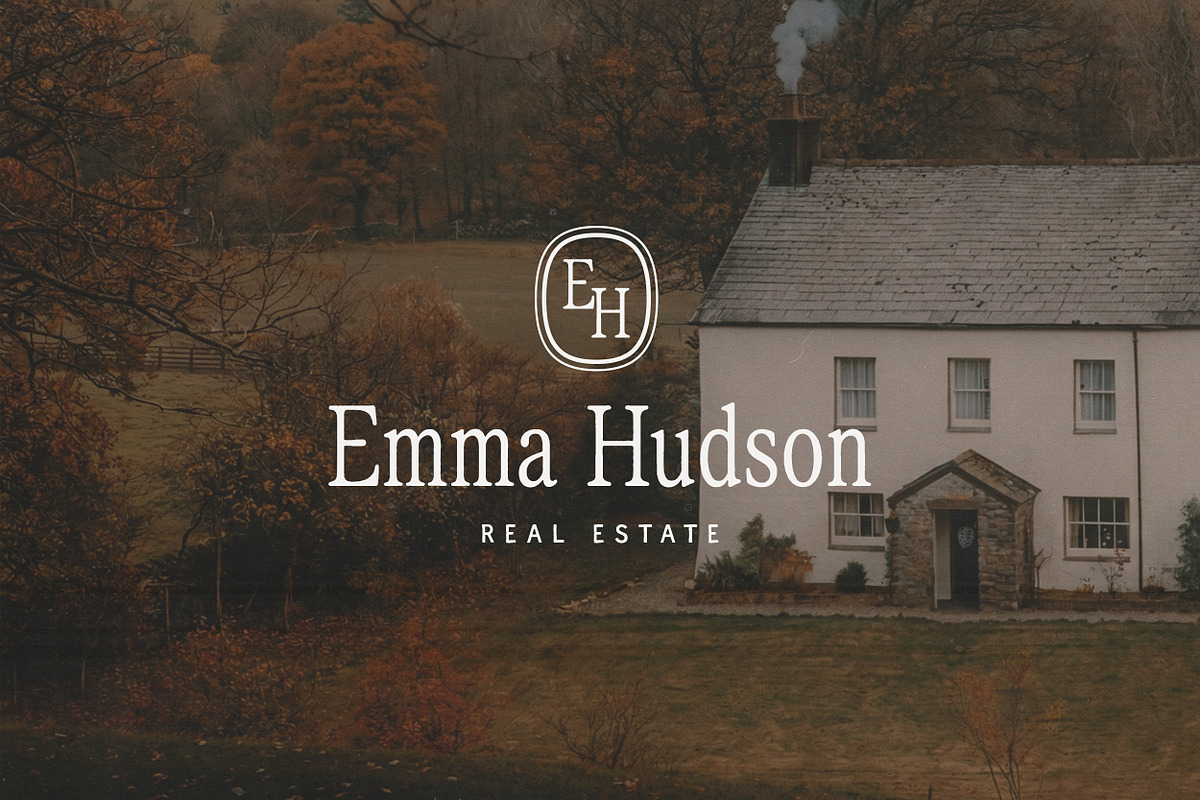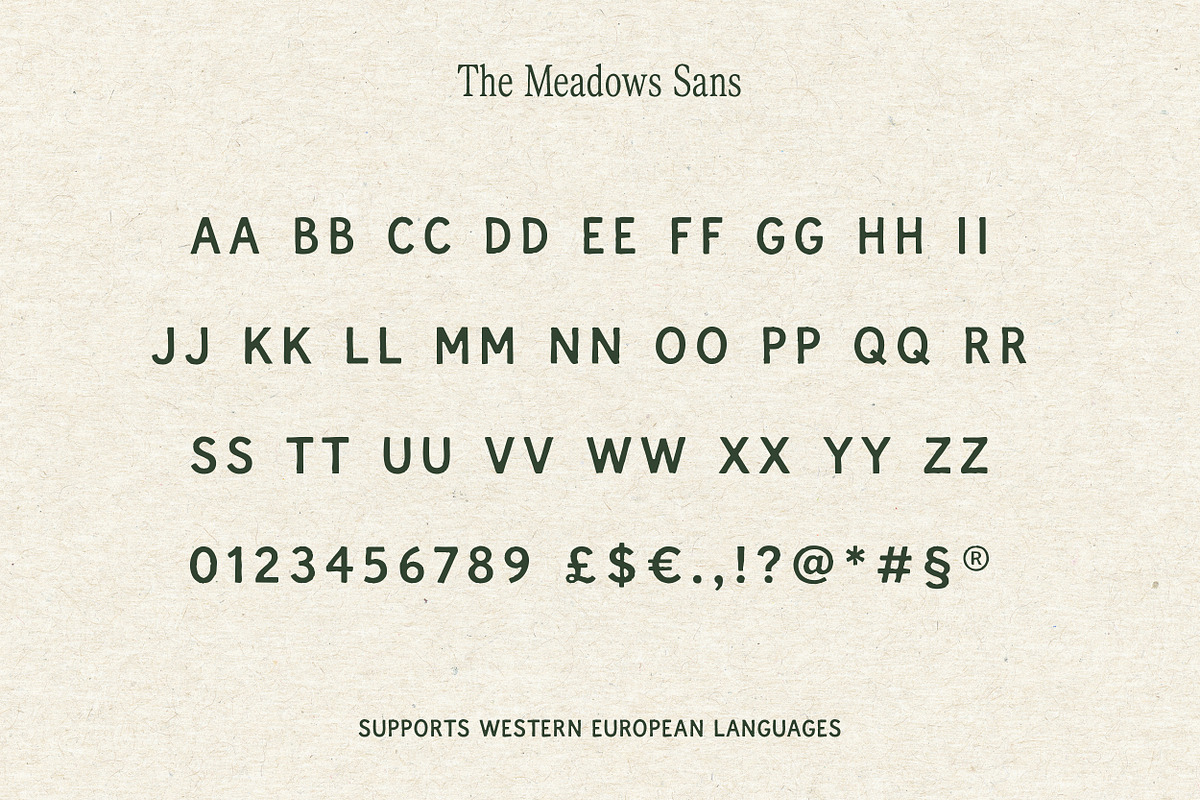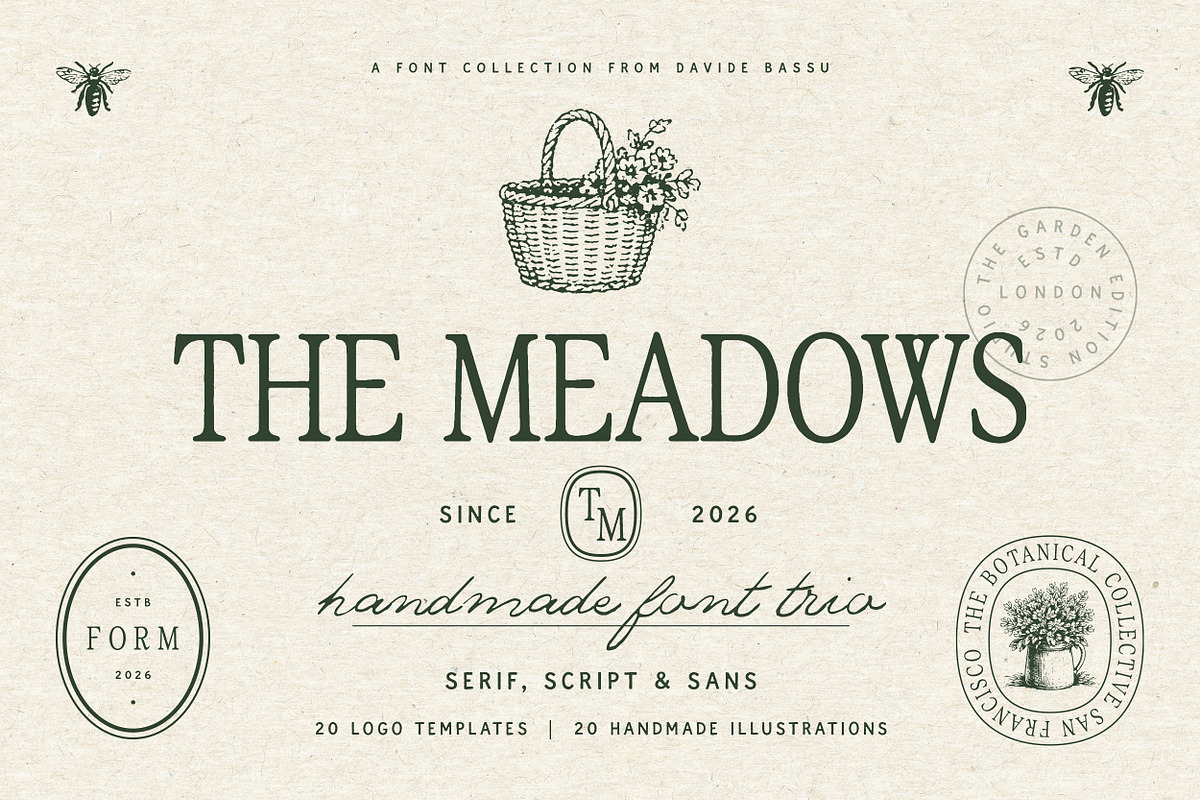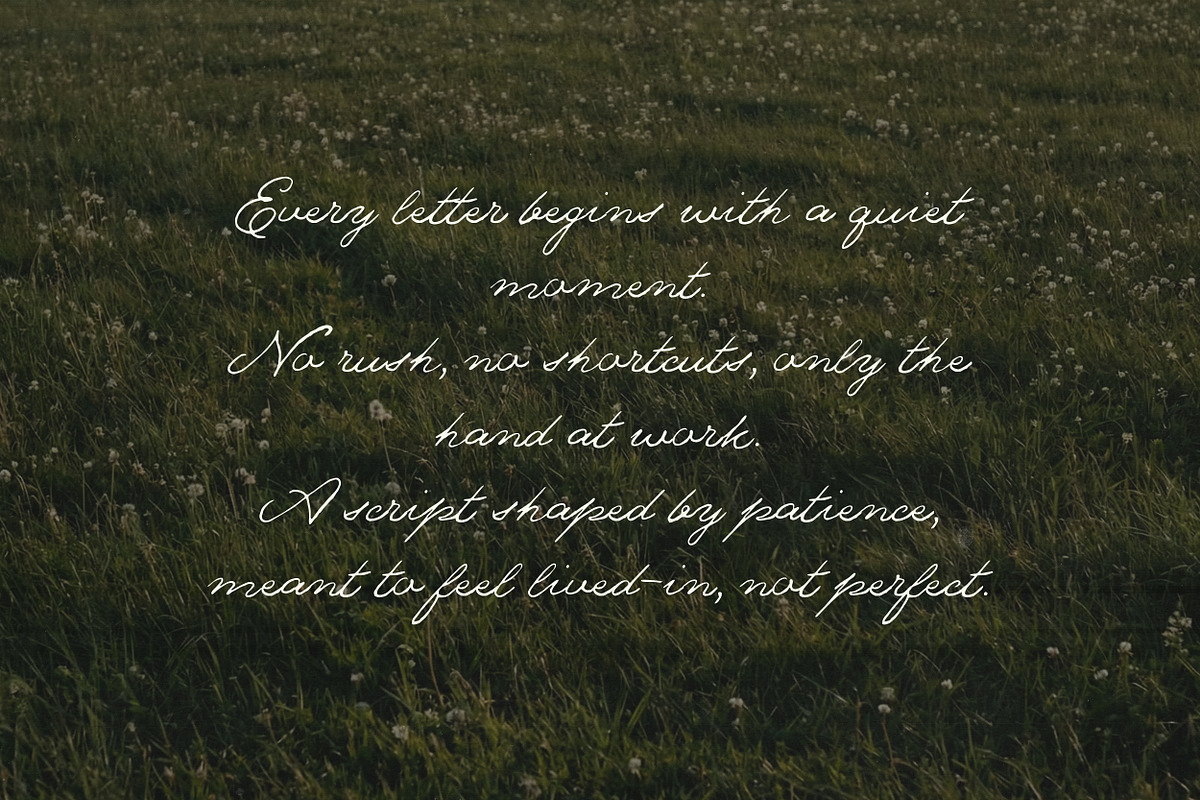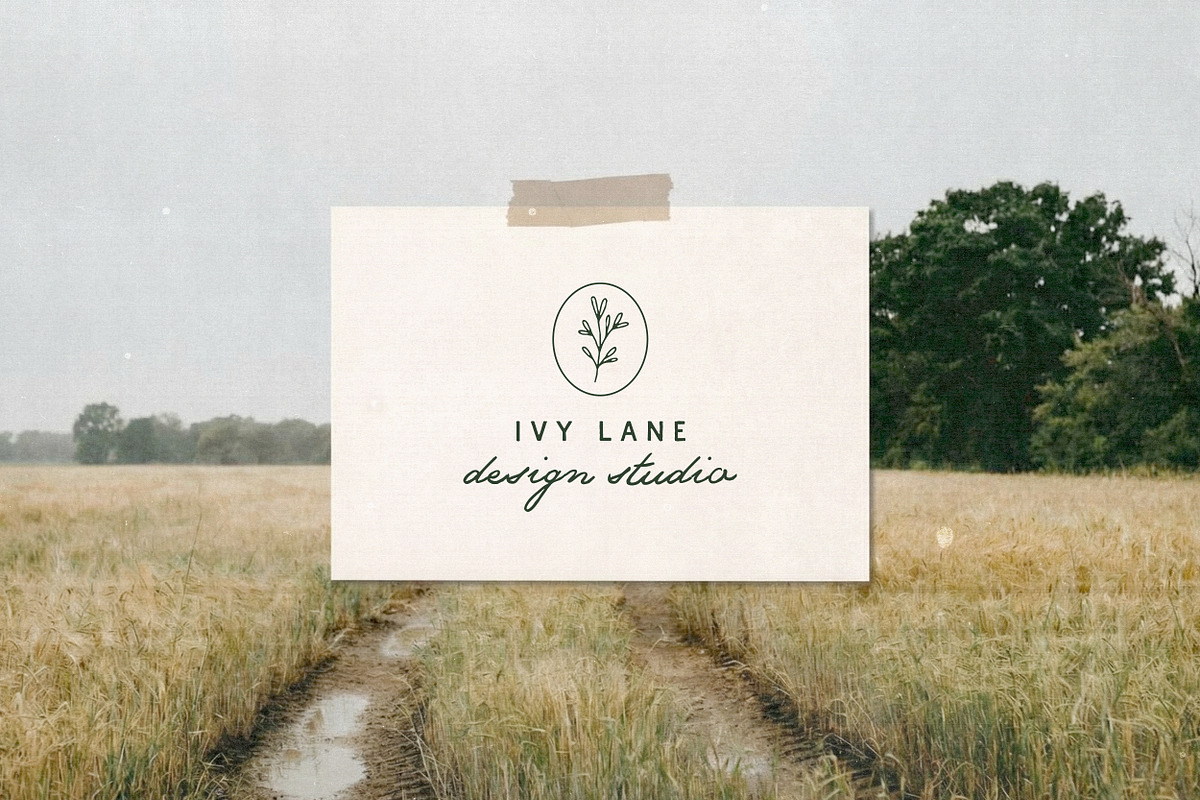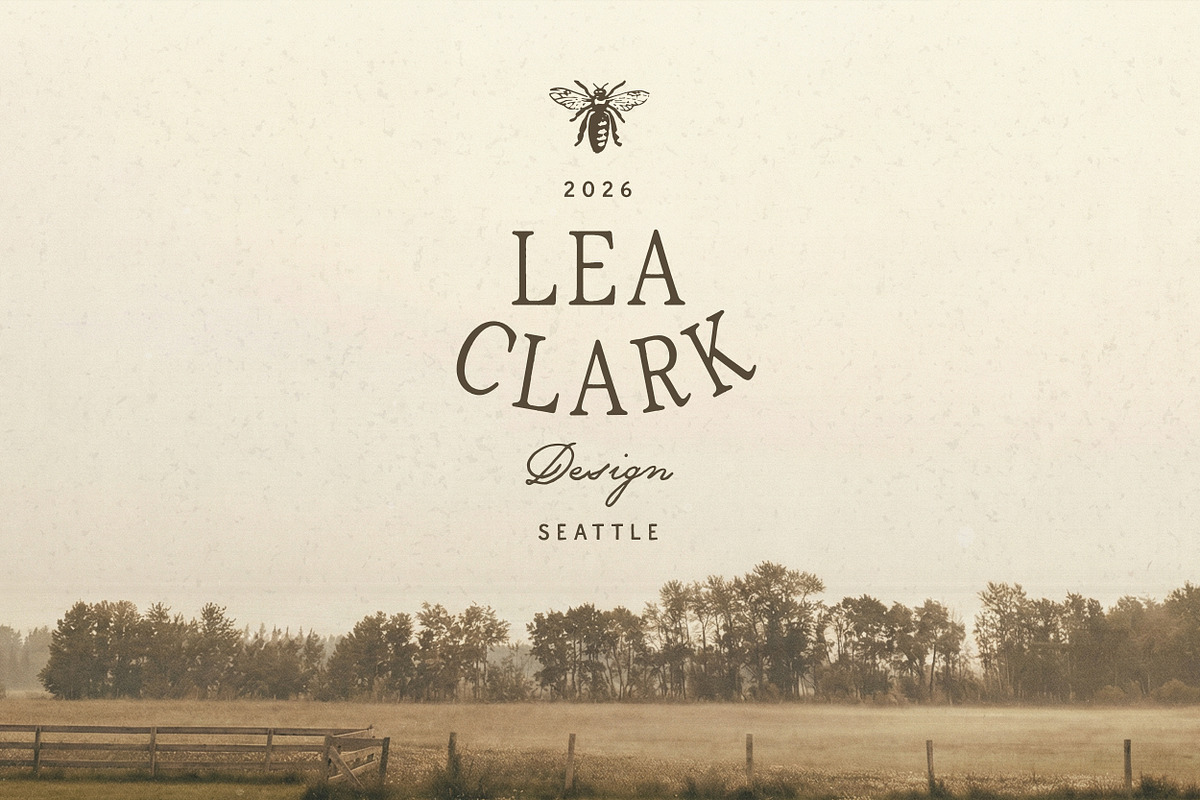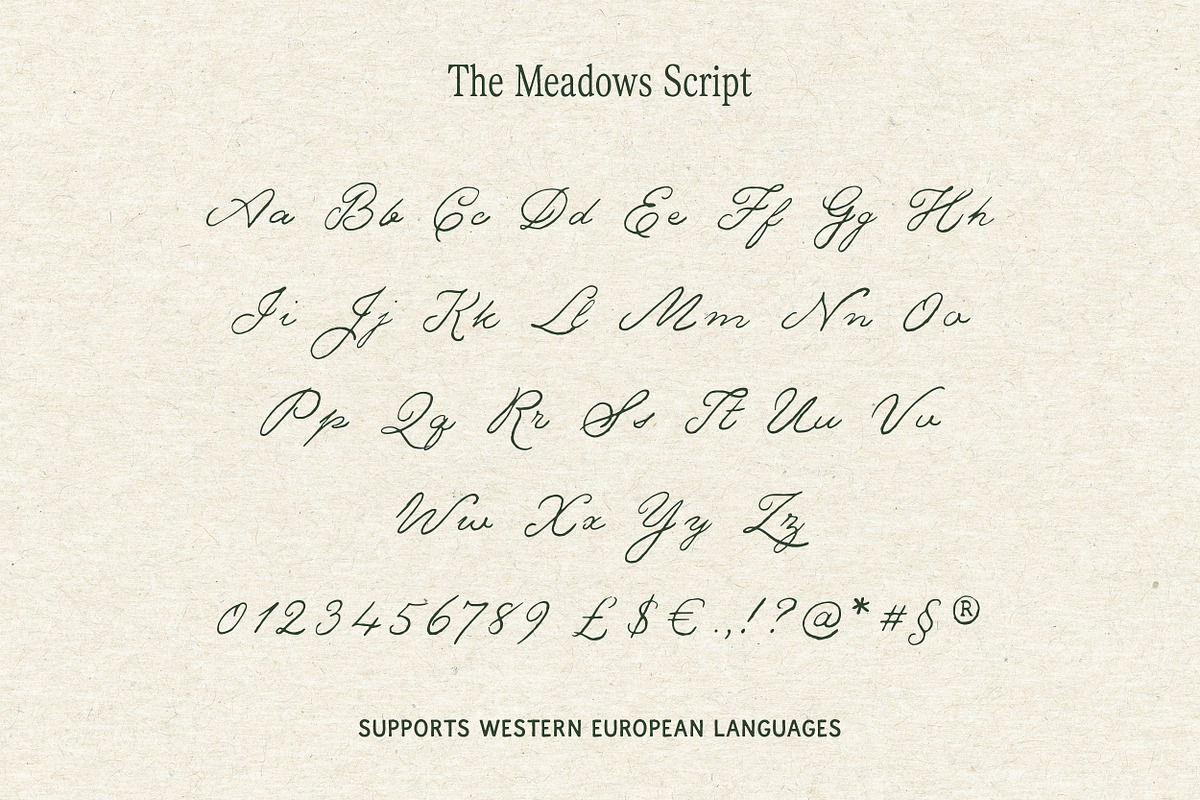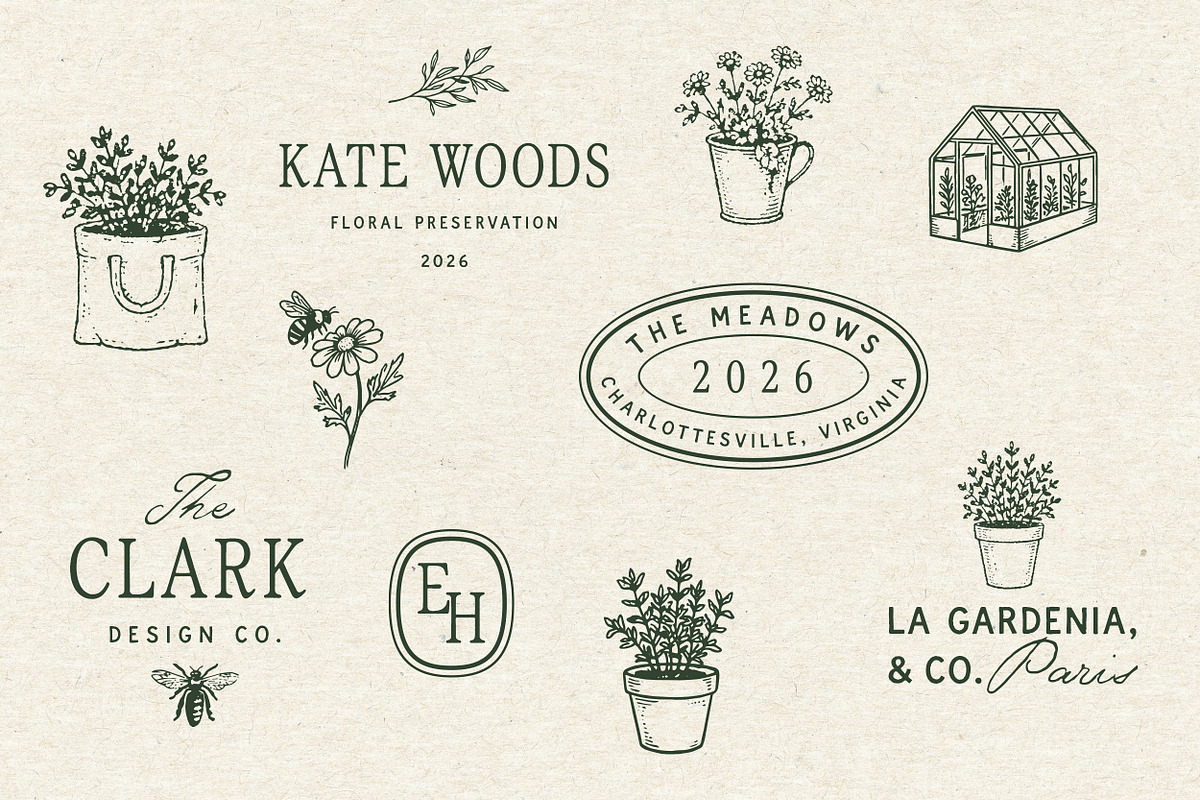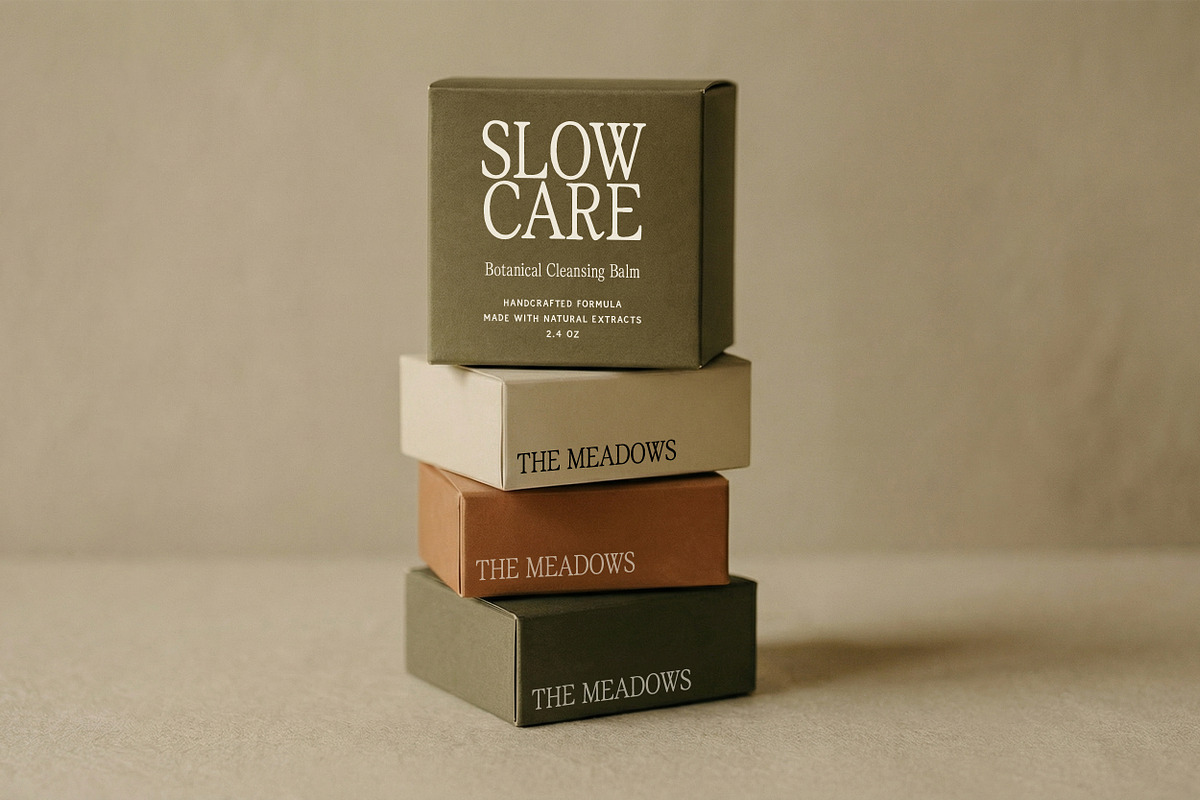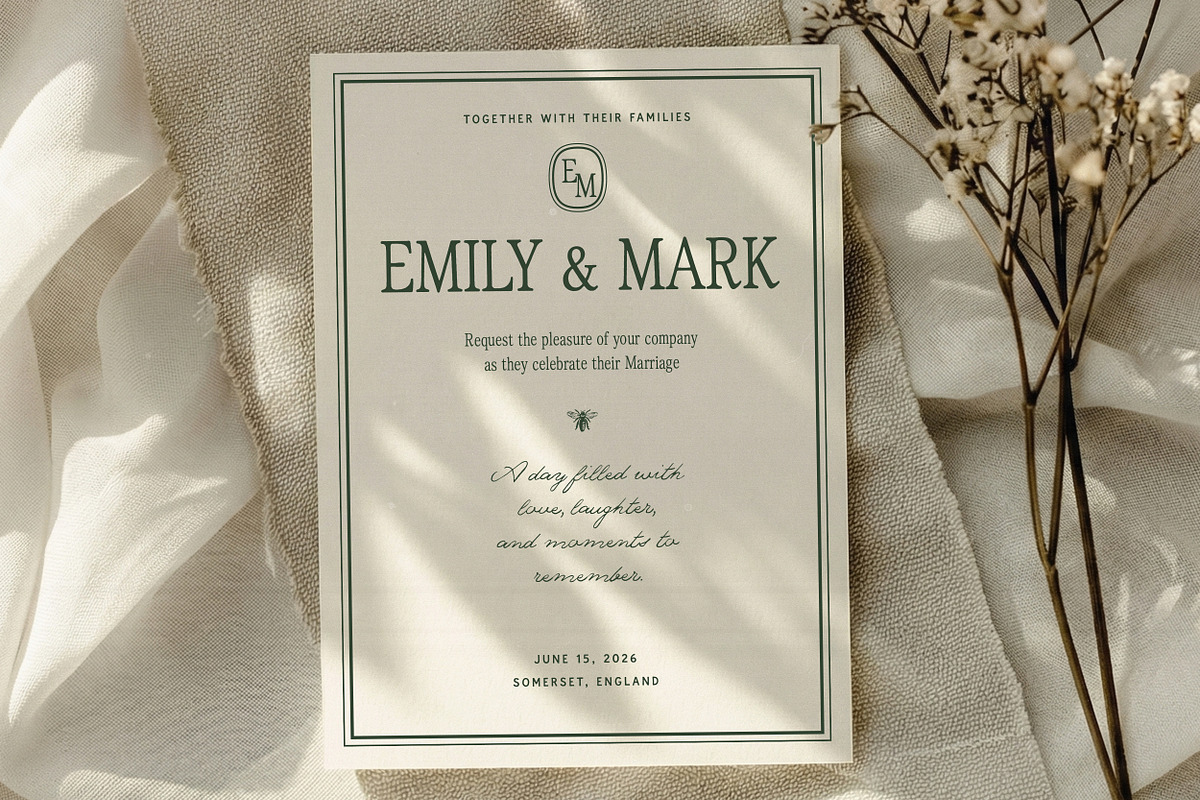
The Meadows - Font Trio & Extra
The Meadows is a handcrafted font trio inspired by countryside life, farmers markets, and vintage editorial design, complete with 20 logo templates and 20 handmade illustrations to help you build full brand identities with ease.
Warm, organic, and timeless, this collection blends classic typography with a handmade soul, making it ideal for brands and projects that value authenticity, calm elegance, and a natural aesthetic.
The trio includes a serif, a script, and a sans, carefully designed to work seamlessly together while remaining strong and expressive on their own. Each style adds depth and flexibility, allowing you to create cohesive visual systems across print and digital projects.
The Meadows is especially suited for designs that feel thoughtful, grounded, and timeless.
Perfect for Wedding invitations & stationery Editorial layouts & magazines Branding & visual identities Logos & signature marks Packaging & product labels Quotes, posters & social media graphics
The Meadows Sans Light and Regular
The Meadows Script Regular, Slanted, Bold and Bold Slanted
The Meadows Serif, Regular and Tall
Uppercase & lowercase letters Numbers & punctuation Multilingual support, Western European Languages supported